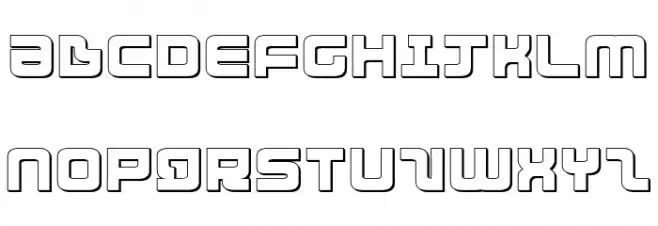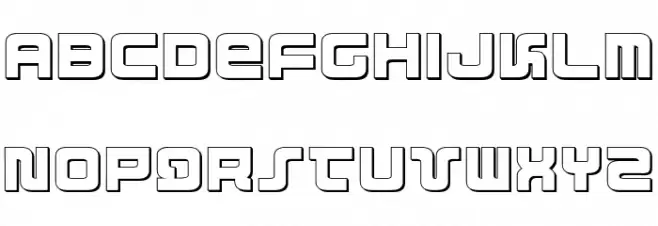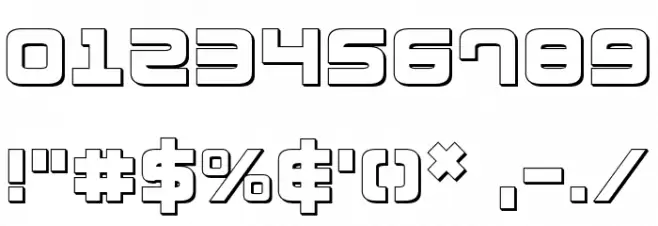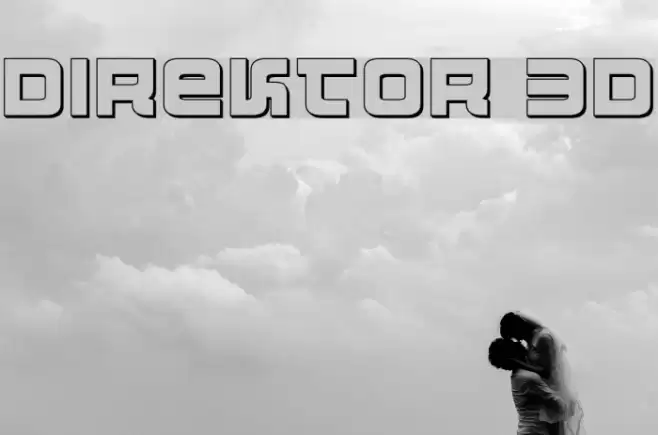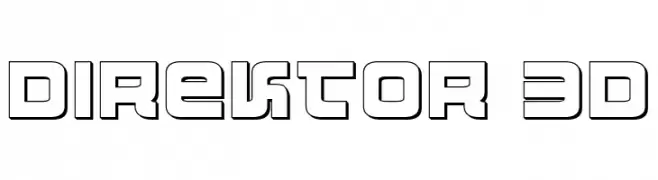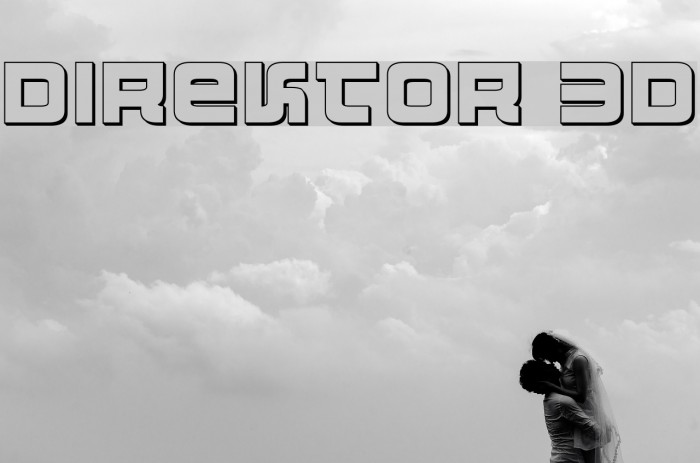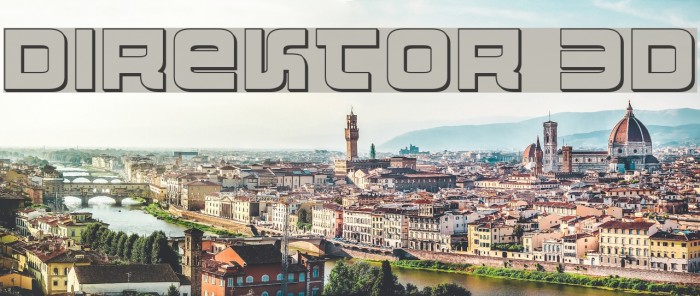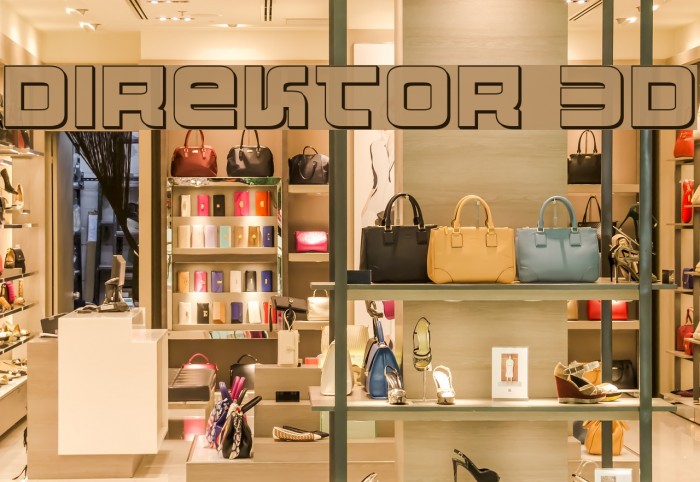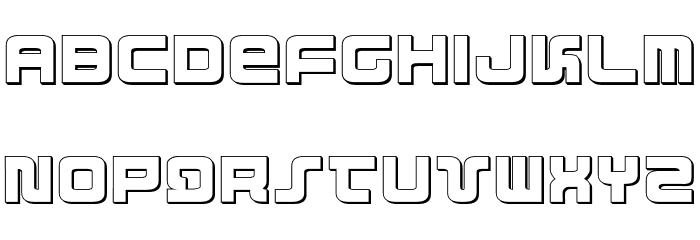
Direktor 3D
This font features a bold, geometric design with a three-dimensional effect that gives each character a distinct, outlined appearance. The uppercase and lowercase letters maintain a consistent style, with sharp angles and clean lines that create a futuristic and modern look. The numbers and special characters follow the same design principles, ensuring uniformity across all glyphs. The font's structure is both eye-catching and legible, making it suitable for various creative applications. Its unique style is perfect for projects that require a strong visual impact.
A bold, geometric font with a 3D effect and sharp, clean lines.
- Proposed Projects: Ideal for branding, posters, video game graphics, and futuristic-themed designs.